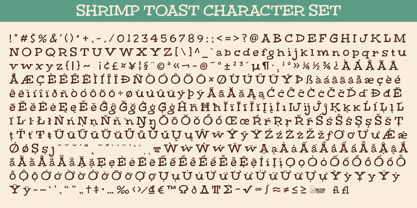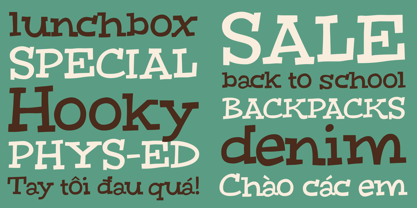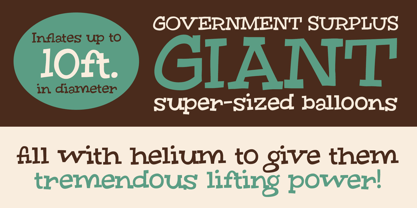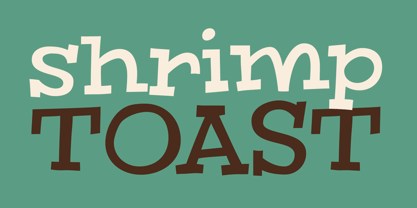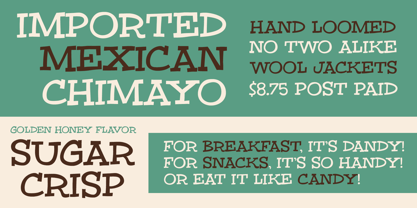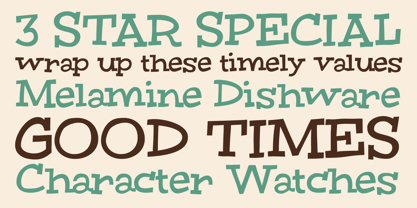
Shrimp Toast
The Shrimp Toast Font Family was designed by Brian J. Bonislawsky, Dave Cohen and published by One Eyed Squid. Shrimp Toast contains 1 styles. More about this family
Shrimp Toast is a whimsical display font designed to bring lightness, charm, and playful personality to otherwise ordinary layouts. Its lively letterforms add a cheerful, decorative touch that works especially well for menus, brochures, editorial projects, packaging, posters, and other designs that need a brighter, more engaging typographic voice. Fun, quirky, and full of character, Shrimp Toast is a strong choice for creative work that benefits from an offbeat yet approachable style. Includes extended Latin language support, including Vietnamese.
Dave "Squid" Cohen & Brian "Stiggy" Bonislawsky combine their fontmaking talents to bring you an array of fun and entertaining typefaces loaded with animated and diverse retro flavor.You may know Dave Cohen's fonts from Sideshow and Neapolitan type foundries, as you may know Brian Bonislawsky's fonts from Astigmatic (AOETI), Grype, Pink Broccoli, Monogram Fonts Co., Stiggy & Sands, and VersusTwin type foundries.So what is this foundry all about? It's all about bringing collaborative skills to bear to express more of their crazy typographic ideas and create even more exciting fonts to the design community.